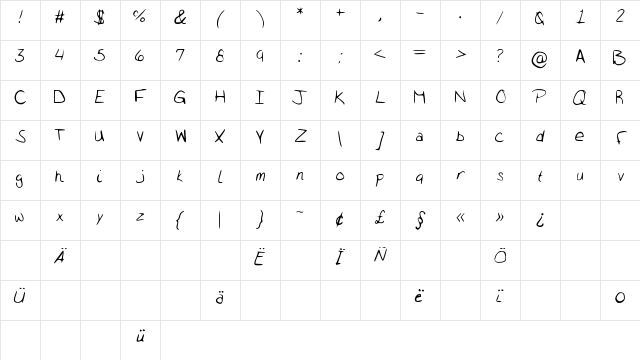
Alywriting Regular Free Font
Alywriting Regular
Design Context for Alywriting
Alywriting is a composed and adaptable typeface that performs quietly and consistently across a wide range of design contexts.